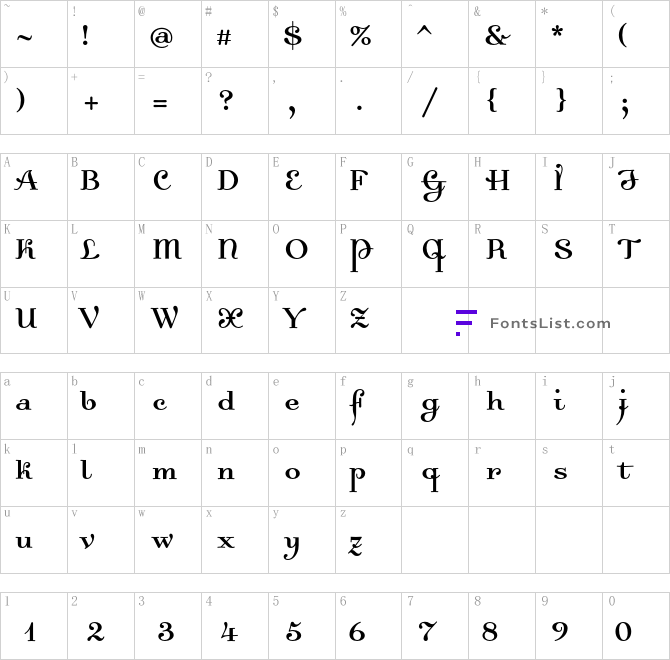
- Font Name:Dalliance
DallianceRoman.otf is a very beautiful artistic font, DallianceRoman.otf is widely used in the design and printing of various books and pictures,DallianceRoman.otf has a strong visual impact,DallianceRoman.otf is a commonly used font in newspapers, magazines and books, and is used in posters, e-commerce Poster design, store design, logo design, font design and other fields.DallianceRoman.